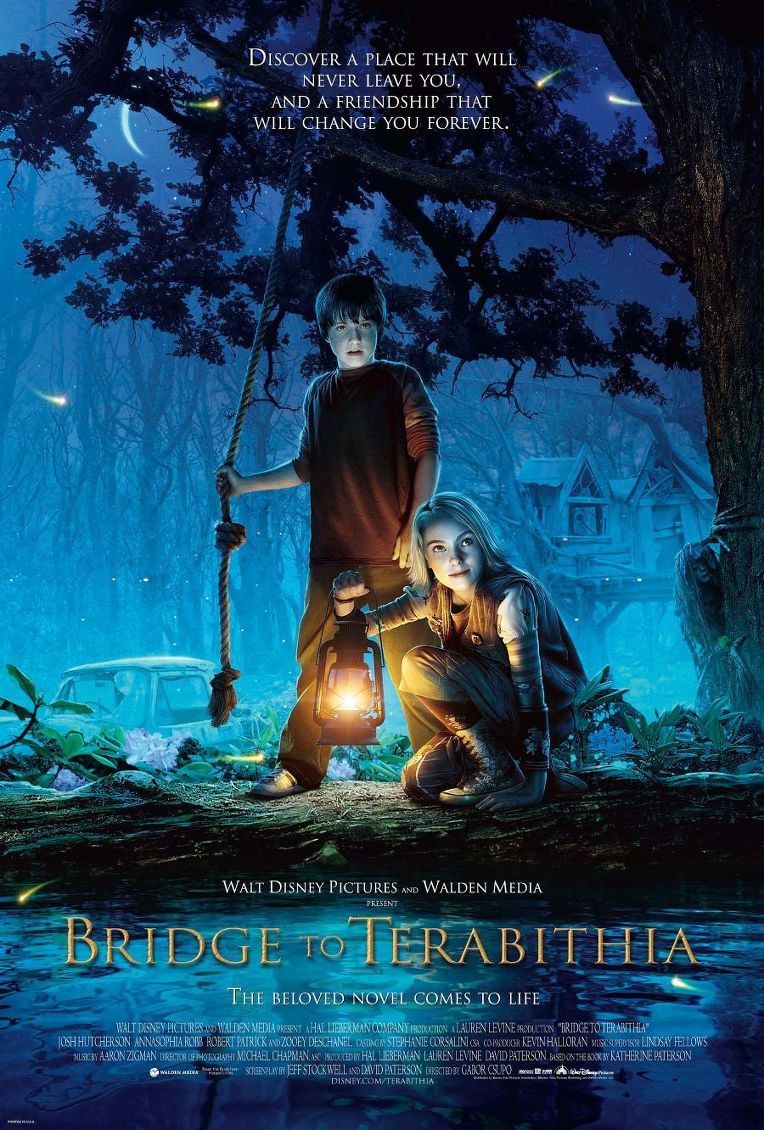
Bridge to Terabithia Font
AdventureBridge to Terabithia is a 2007 American fantasy adventure drama film based on the Katherine Paterson novel of the same name, and released by Walt Disney Pictures. The film tells the story of Jesse Aarons and Leslie Burke, ten-year-old neighbors who create a fantasy world called Terabithia and spend their free time together in an abandoned tree house.
The font used for the movie title in the poster is probably Trajan designed in 1989 by Carol Twombly for Adobe. Trajan is an elegant typeface well-suited for display work in books, magazines, posters, and billboards, and it is frequently seen on American movie posters and television shows.